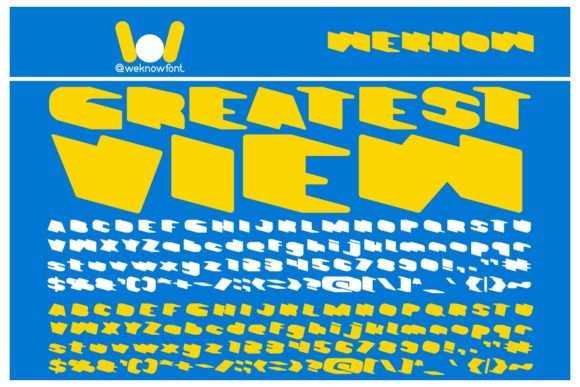
Step into a world where your designs leap off the screen, captivating audiences with their bold and playful charm. Say hello to Greatest View font, a display font that brings an infectious energy to your creative projects.
With its chunky letters and cartoonish flair, Greatest View makes a statement wherever it appears. Whether you're crafting eye-catching social media posts, designing playful logos, or creating whimsical invitations, this font injects a touch of fun and personality into every project.
Let your imagination run wild as you explore the endless possibilities of Greatest View. Use it to craft Instagram posts that pop, ensuring your content stands out in the crowded digital landscape. Unleash your creativity in designing logos that radiate joy and leave a lasting impression. Add a touch of whimsy to invitations, greeting cards, and posters, making every occasion feel extra special.
The versatility of Greatest View is truly remarkable. Its bold presence shines in headlines, drawing attention to important messages and captivating readers from the get-go. In body text, it maintains its playful charm while ensuring readability, making your content both enjoyable and informative. And when used for display purposes, Greatest View commands attention, turning ordinary designs into extraordinary works of art.
Join the countless designers, marketers, and creatives who have fallen in love with Greatest View. Experience the transformative power of a font that breathes life into your designs, making them resonate with audiences on a deeper level. Dare to be different, to stand out from the crowd, and to make a statement with every project you create.
With Greatest View by your side, you'll never have to settle for ordinary again. Embrace the extraordinary, embrace the playful, embrace the Greatest View!